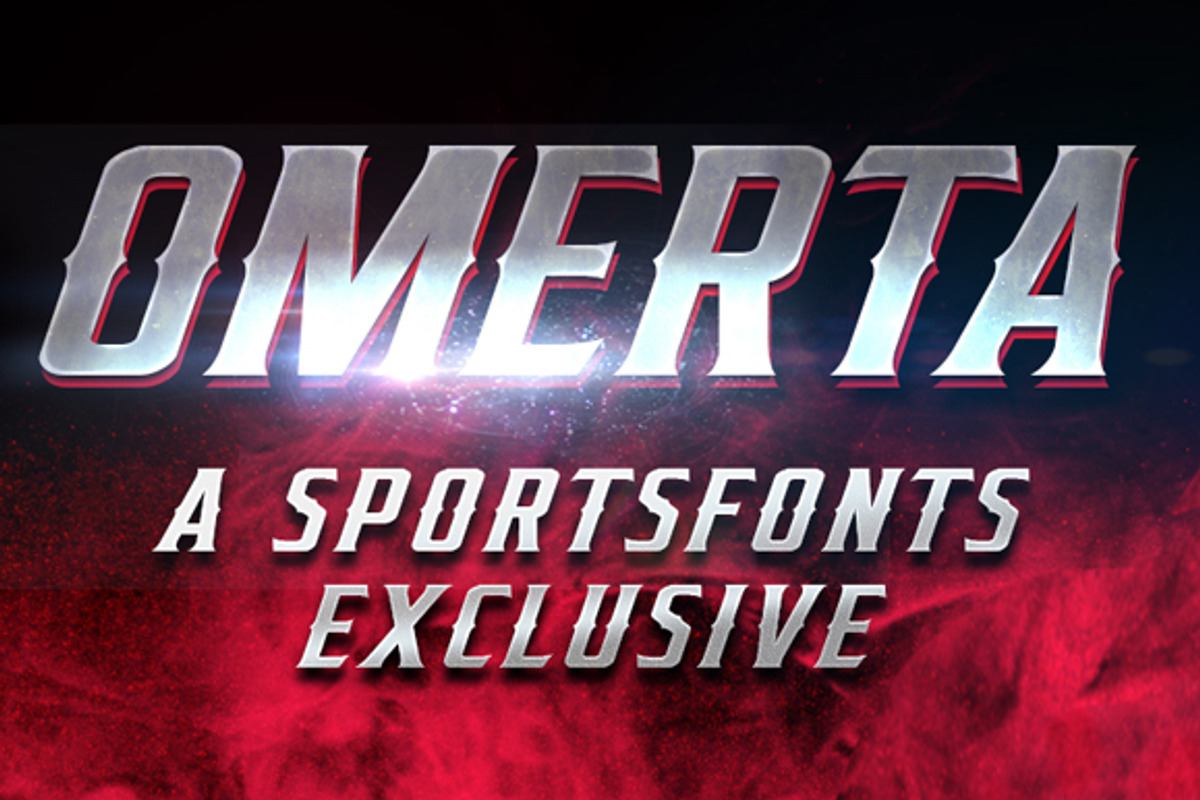
Sportsfont Omerta Font Free Download is a strong, bold typeface inspired by sports and athletic branding. Featuring solid letterforms and a rugged, athletic style, this font is perfect for team logos, sports posters, merchandise, apparel, and any design that needs a powerful, dynamic feel.
With its clean lines and impactful presence, Sportsfont Omerta brings energy and intensity to your projects, making it ideal for designs that demand attention and convey strength. Whether you're creating for a sports team, a fitness brand, or athletic events, this font delivers a professional and competitive vibe.
Bring strength and energy to your designs with the bold, athletic style of Sportsfont Omerta!